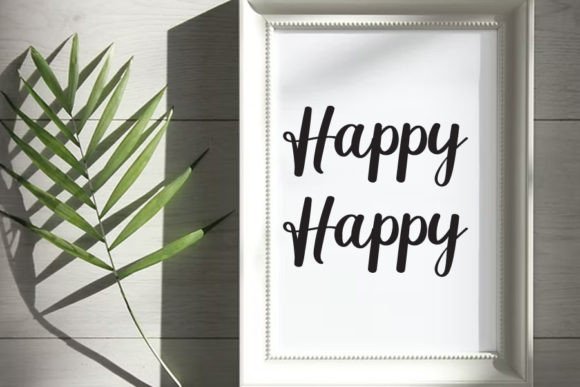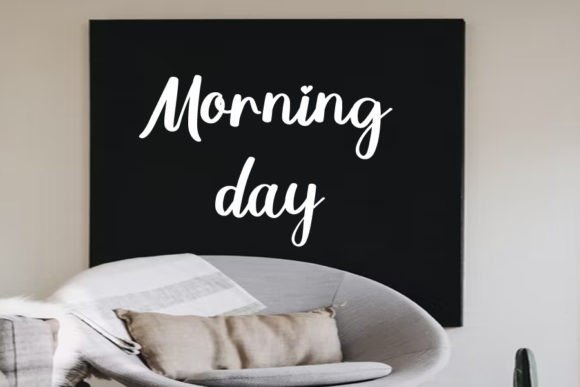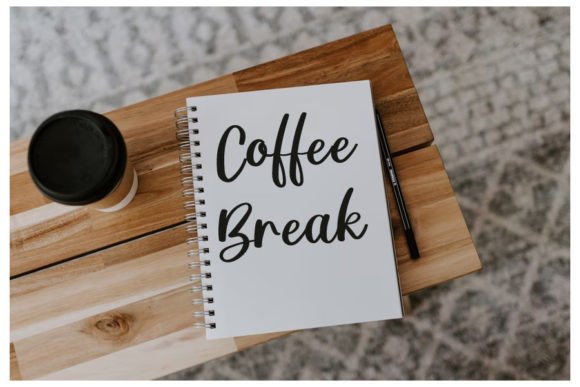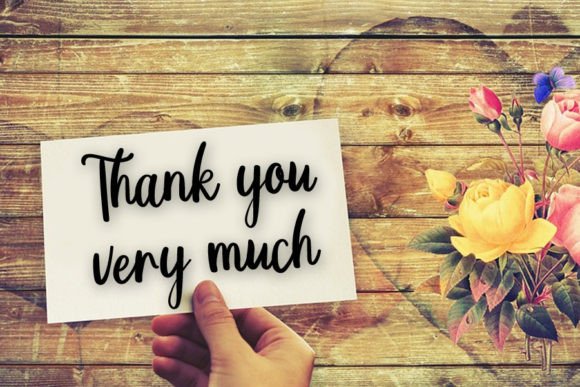
The Perfect Petal: Unlocking the Beauty of Daisy Font
Remember that moment when you stumbled upon the perfect combination of colors and typography that made your design stand out from the crowd? For designers, it’s a feeling of pure elation and satisfaction. But, what if I told you there’s a font that can help you recreate that magic in your next project?
Enter the enchanting Daisy Font – a fresh and beautiful typeface designed to elevate your design purposes, from YouTube banners to wedding invitations. This charming font is perfect for those who crave simplicity and uniqueness in their designs. By incorporating the Daisy Font into your work, you’ll not only breathe new life into your projects but also give your business the boost it needs to progress and develop.
Daisy Font Key Features
- Unique Characteristics: Daisy Font features a unique, hand-drawn design with a playful and whimsical feel, making it perfect for use in children’s books, magazines, and other publications that require a friendly and approachable tone.
- Character Set: Daisy Font includes a comprehensive character set, including uppercase and lowercase letters, numbers, punctuation marks, and special characters, ensuring that it can be used for a wide range of applications.
Daisy Font Review
I recently had the chance to work with the Daisy Font, and I must say it’s a delightful addition to any design project. Here’s what I love about it: ✨
- ✨ Its friendly and approachable feel makes it perfect for child-friendly content, magazines, and other projects that require a warm touch.
- ✨ The font is highly legible, even at smaller font sizes, which is a must for any successful typography.
- ✨ The font’s simplicity and clean lines make it a great choice for minimalistic designs, where less is more.
However, I did encounter a few limitations: ⚠️
- ⚠️ The font may not be suitable for formal or professional projects, as it lacks the sophistication and elegance required for such contexts.
- ⚠️ Some users may find the font’s rounded edges and soft curves too cutesy or childish, which could be a drawback in certain situations.
Overall, I’m impressed with the Daisy Font’s versatility and friendliness. While it may not be the best choice for every project, it’s certainly a great addition to any designer’s toolkit. With its high legibility and clean design, it’s sure to bring a touch of warmth and approachability to any design.
Tips for Getting the Most Out of Daisy Font
Use the Daisy Font for headings and titles to add a touch of whimsy and playfulness to your designs.
Pair the Daisy Font with other fonts to create a unique and eye-catching typography combination.
Experiment with different font sizes and colors to create a visually appealing contrast.
Daisy Font is perfect for:
Children’s party decorations and invitations
Food and beverage branding
Home decor and stationery